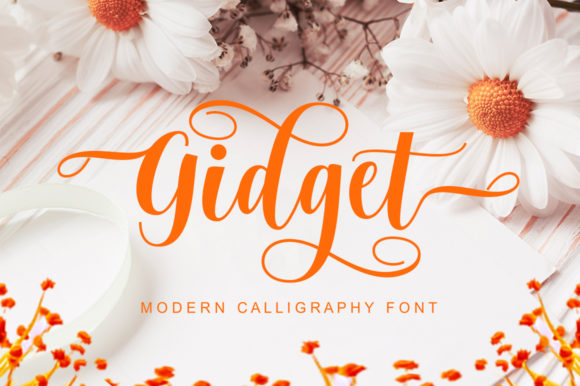
Introducing Gidget Font - The Epitome of Elegance and Sophistication for Your Email Signature
Journey into a world of exquisite typography with Gidget Font, a script font oozing with contemporary allure and impeccable form. Inspired by the timeless beauty of classic calligraphy, Gidget strikes a perfect balance between thickness and thinness, creating a visually captivating and aesthetically pleasing font that elevates your email signature to new heights of sophistication.
Crafted with meticulous attention to detail, Gidget's varied design adds a touch of dynamism and visual interest to your emails, ensuring they stand out from the crowd. Its graceful curves and elegant lines exude a sense of professionalism and polish, leaving a lasting impression on recipients. Whether you're a creative professional, a business owner, or anyone seeking to elevate their digital communication, Gidget Font is the perfect choice.
Step into the realm of refined typography and experience the transformative power of Gidget Font. Transform your email signature into a work of art, captivating attention and leaving a memorable impact with every message you send. Embrace the essence of elegance and sophistication and see the difference Gidget Font makes in your digital presence. Let your words dance across the screen with grace and poise, leaving recipients spellbound by the beauty of your communication.